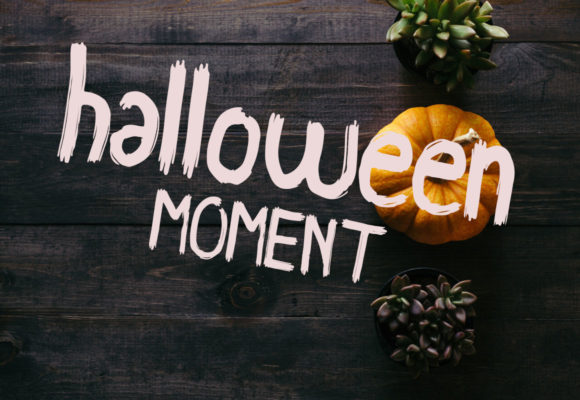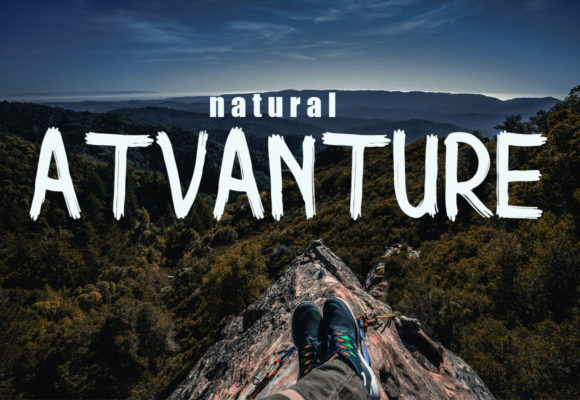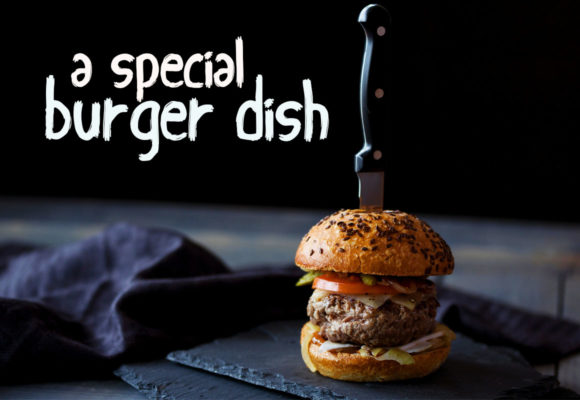
Introduction to Litlebrush Font
As designers, we’ve all been there – staring at a blank canvas, trying to come up with the perfect font to bring our creative project to life. The search for the perfect typography can be overwhelming, especially when working on a tight deadline. But what if I told you there’s a font that’s not only free to download, but also offers a high-quality, versatile feel that’s perfect for a wide range of design projects?
Enter the Litlebrush Font, a casual yet fun display font that’s about to become your new go-to design resource. With its transparent background and creative flair, this font is perfect for designers looking to add a touch of personality to their work. Whether you’re working on a branding project, a social media campaign, or a simple blog post, the Litlebrush Font is sure to bring your design to the next level.
- High-quality design resource ideal for creative projects, including digital art, graphics, and print materials.
- Comes with a transparent background, making it easy to integrate into various design elements.
- Features a unique, hand-drawn style that adds a touch of personality to any design, making it perfect for creative projects.
- Includes a range of characters, including uppercase and lowercase letters, numbers, and punctuation marks, making it a versatile design resource.
Honest Review: Litlebrush Font
I recently stumbled upon the Litlebrush Font, and I’m excited to share my thoughts with you. As a designer, I’m always on the lookout for high-quality design resources that can elevate my creative projects.
Here are some things that work well with the Litlebrush Font:
- ✨ The font has a unique, playful style that’s perfect for adding a touch of whimsy to your designs.
- ✨ The font is highly customizable, allowing you to adjust the size, color, and even the transparency of the background to suit your needs.
However, I do have a few caveats to mention:
- ⚠️ The font may not be suitable for all types of projects, particularly those that require a more formal or professional tone.
- ⚠️ The font’s design can be a bit overwhelming for text-heavy content, so be sure to use it judiciously.
Overall, I’m impressed with the Litlebrush Font’s creativity and versatility. With a little practice, it can be a valuable addition to your design toolkit. Just remember to use it thoughtfully, and you’ll be creating stunning designs in no time!
For the best results, use Litlebrush Font on a transparent background to allow the font to stand out. Experiment with different font sizes and styles to find the perfect look for your project.
Litlebrush Font is perfect for a variety of creative projects, including logo designs, social media graphics, and marketing materials. Its high-quality design and transparent background make it a versatile resource for designers of all levels.